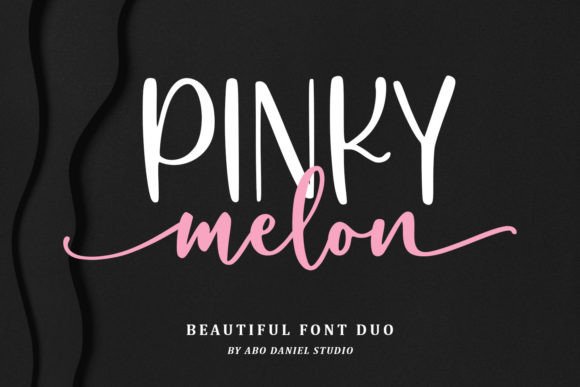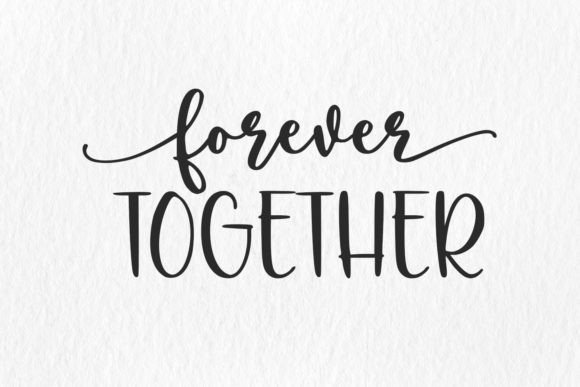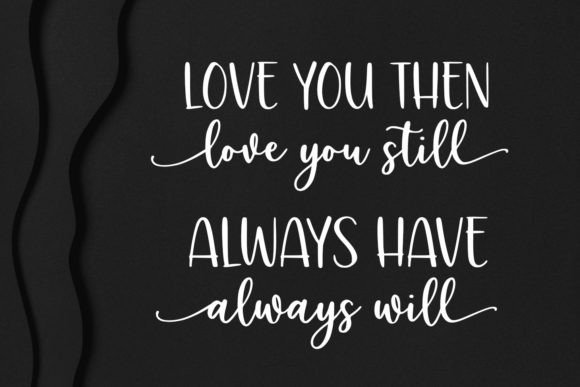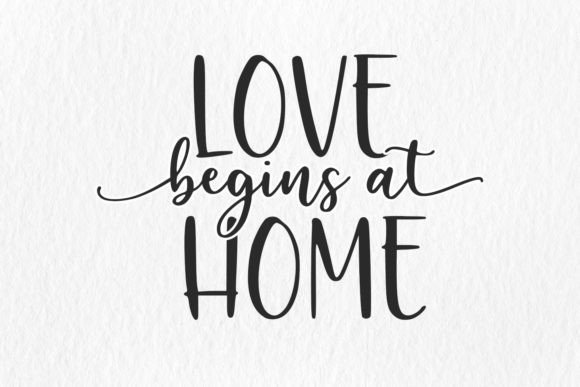
Pinky Melon Font
About the Pinky Melon Font
Crafted with precision, the Pinky Melon Font is ready to bring your ideas to life. Pinky Melon is a beautiful font pairing of a handwritten script and a sleek sans-serif. Together, they create a harmonious balance of sophistication and simplicity. Perfect for wedding invitations, high-end branding, and more, this font duo adds a touch of elegance to your designs. This font is PUA encoded which means you can access all glyphs and swashes with ease!
Pinky Melon excels in applications requiring a touch of refined playfulness; think wedding stationery, logos for boutique businesses, or packaging for high-end cosmetics. Its elegant script complements the clean sans-serif, creating a versatile yet sophisticated feel. Avoid using it for large blocks of body text or UI elements where readability is paramount; the script’s delicate nature can hinder legibility in smaller sizes.
Consider pairing the script with a geometric sans-serif like Futura for a modern, balanced aesthetic, or a warmer, rounded sans-serif such as Lato for a more approachable feel. For a contrasting yet harmonious look, a classic serif like Garamond can add a touch of timeless sophistication.
The overall personality is one of sophisticated charm—approachable yet elegant, playful but never childish. It’s ideal for brands that project a sense of quality and understated luxury.
Pinky Melon Font Usage Examples
Pinky Melon Font Example